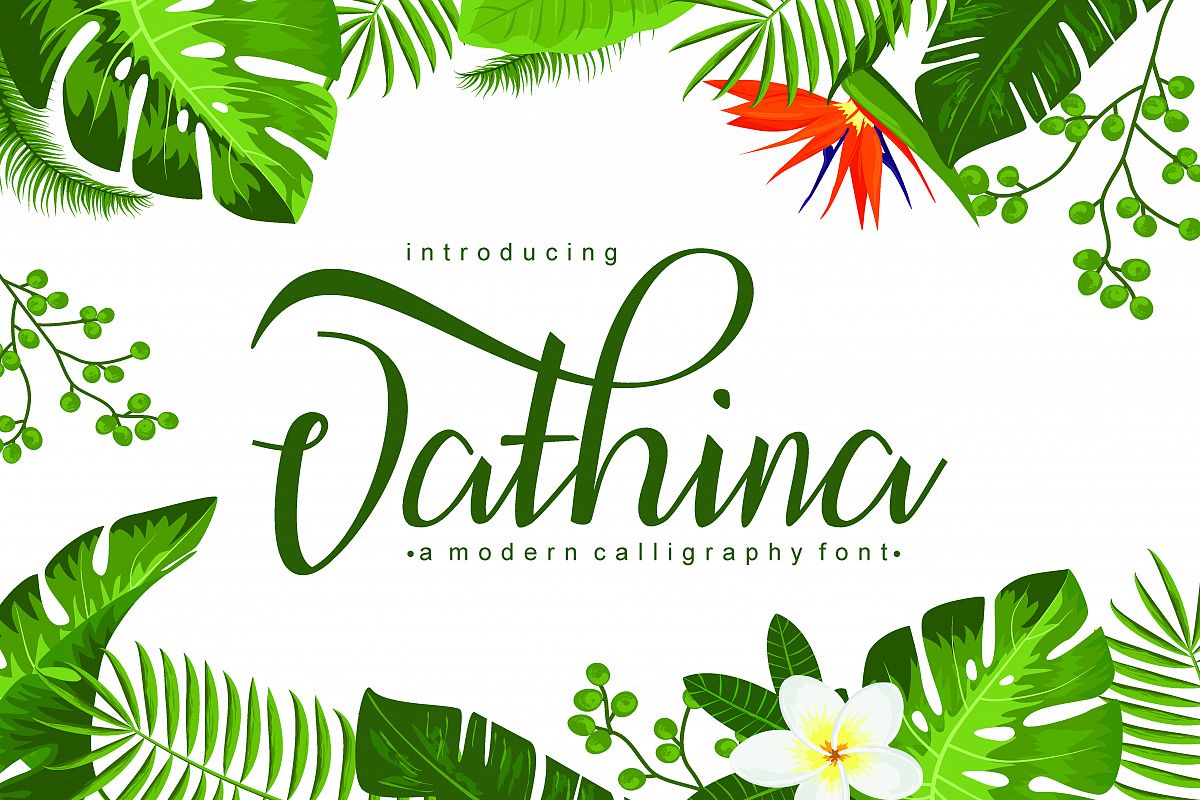
vathina script
Vathina Script
Vathina Script a new fresh & modern script with a
handmade calligraphy style, decorative characters and a dancing
baseline! So beautiful on invitation like greeting cards, branding
materials, business cards, quotes, posters, and more!!
The alternative
characters were divided into several Open Type features such as Swash,
Stylistic Sets, Stylistic Alternates, Contextual Alternates. The Open
coded fonts). so that all the alternate characters can easily be
accessed in full by a craftsman or designer.
Vathina Script :
Uppercase & Lowercase International Languange & Symbols
Support Punctuation & Number PUA Unicode Range Standard Stylistic
Alternates Stylistic Set 1-13 Character Variant Contextual.